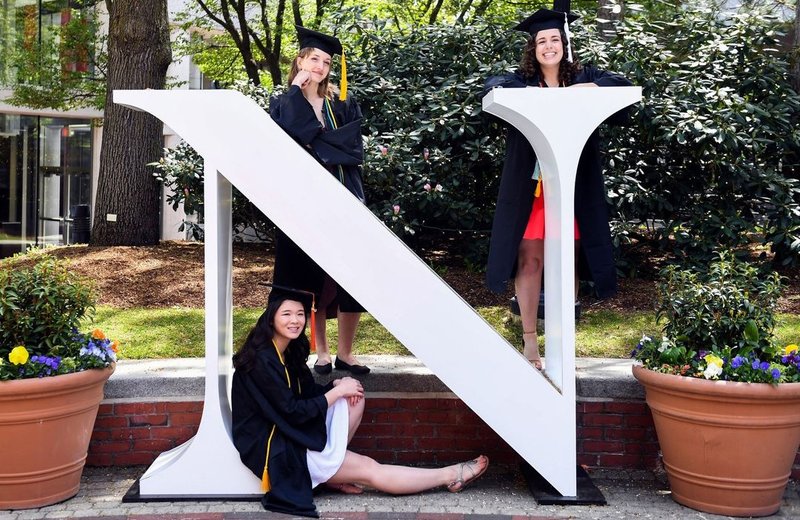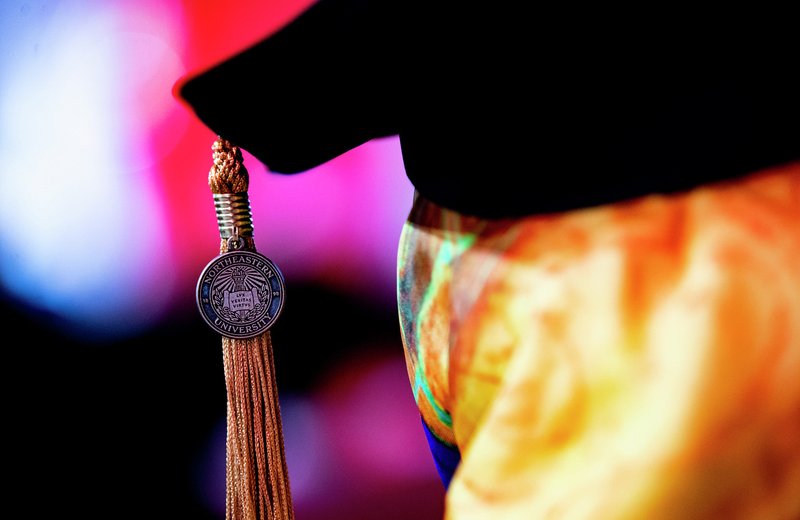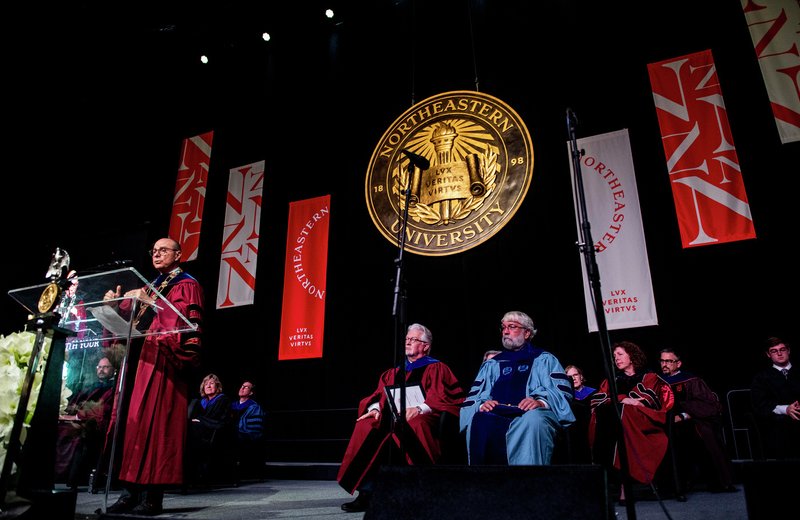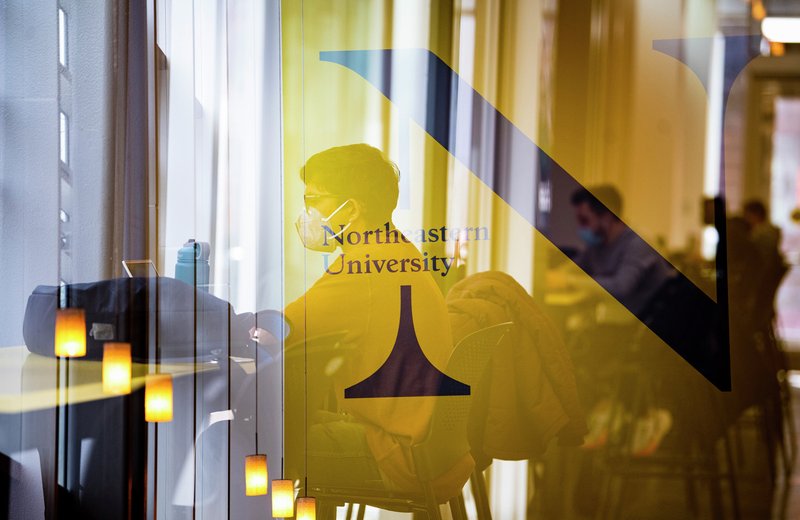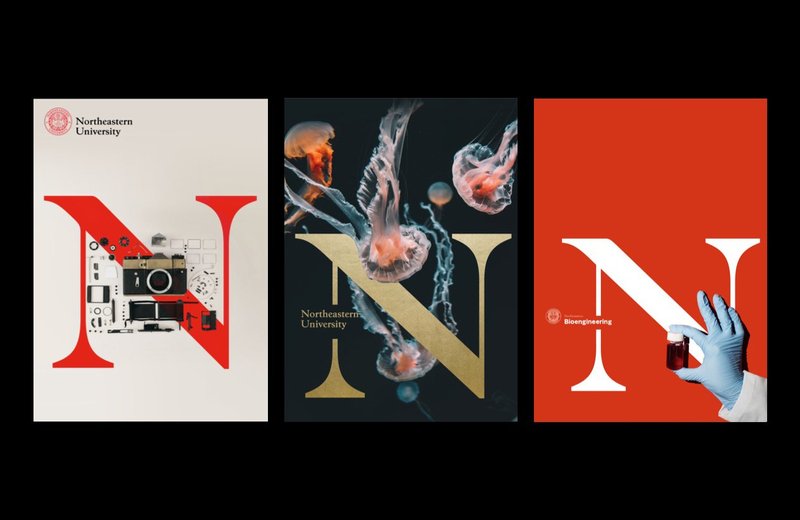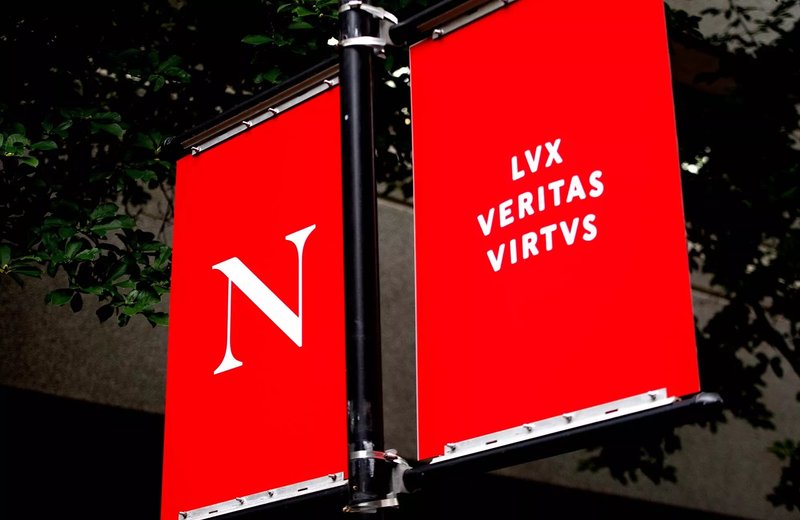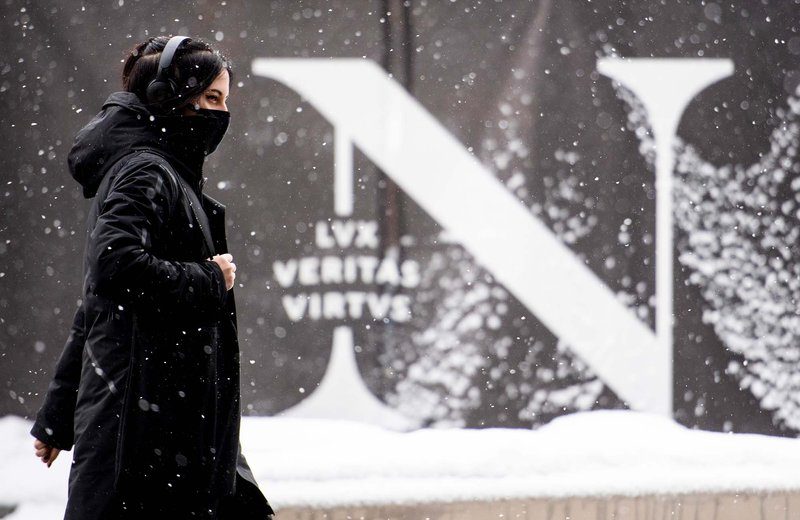
Custom typeface and lettering for Northeastern University
A black sign features the N monogram with motto, locked up with the Northeastern University logotype
The identity system in use. Image: Northeastern University
XYZ Type helped Boston-based studio Upstatement design an extensive identity system for Northeastern University that included a typeface, a logotype, a monogram, lettering, and even illustration—but it all started because the school needed to remove the words “Boston, Massachusetts” from their seal.
Northeastern had grown and expanded beyond their original campus, and they asked Upstatement to create a simplified seal, untethered by location and optimized for use everywhere from screens to enormous signage. Knowing this challenge required typographic finesse, Upstatement partnered with XYZ Type—and the project grew from there.
Two Northeastern University seals, old and new.
The Northeastern University seals, old and new
A close-up of the old Northeastern University seal.
The previous Northeastern University seal
A close-up of the new Northeastern University seal.
The new Northeastern University seal
Replacing a legacy of bad auto-tracing
The poorly autotraced historical seal that Northeastern University was using in all of its print and digital applications lacked nuance and became distractingly lumpy at large sizes. Upstatement tapped Jesse Ragan to make both the lettering and the illustrations clear and elegant in all applications, with a few updates.
He started by redrawing the torch, motto, scroll, and laurels with less visual clutter. Removing two words from the ring made space for “Northeastern University” to gain size and focus. No existing typeface was a perfect match for the historical lettering, so Jesse faithfully reinterpreted the glyphs in crisp, clean vector outlines.
Drawing letters on a curve presents special challenges, as letterforms can quickly get deformed or distorted out of visual balance, looking like they belong on a circus poster. Rather than warping the shapes in an arc or rotating each letter, Jesse meticulously drew them with a slight arch to the top and bottom of the letters and a slight fanning of the vertical strokes within.
The word "HER" is arched in two different directions
A demonstration of letterforms thoughtfully drawn on an arc
I try to approach digital lettering with the same detail and care that would have been employed before computers, to capture the warmth that comes from making something by hand. Otherwise, why bother with custom lettering in the first place?
Jesse Ragan, XYZ Type
The 1912 American Type Founders catalog rests open to a spread showing the typeface Jenson Oldstyle
Jenson Oldstyle, from the 1912 American Type Founders catalog
The 1912 American Type Founders catalog rests open to a spread showing the typeface Bookman Oldstyle
Bookman Oldstyle, from the 1912 American Type Founders catalog
The 1912 American Type Founders catalog rests open to a spread showing the typeface Clearface
Clearface, from the 1912 American Type Founders catalog
The 1912 American Type Founders catalog rests open to a spread showing the typeface Century Oldstyle
Century Oldstyle, from the 1912 American Type Founders catalog
Thinking outside of the seal
After demonstrating dramatic improvements to the seal, Upstatement persuaded Northeastern to dig deeper into rethinking their identity system—a lot deeper. Their broad strategy included replacing off-the-shelf Baskerville with a brand new logotype and a matching typeface, inspired by the lettering in the seal. The two would function seamlessly together for department name lockups and any future unexpected growth.
Jesse stepped in again. His design process started with the “test characters” N U a e h i n o r s t v y, since the letterforms in the school’s name established the tone of the logotype and carried it into the supporting typeface.
Lacking a direct reference for the lowercase letters, Jesse showed Upstatement a variety of typefaces that were popular around the time of the school’s founding and resonated with the capitals in the seal. Through collaborative discussions with the design team, he established a new visual style distilled from several faces offered by American Type Founders in the early 1900s: Jenson Old Style, Bookman, Century Old Style, and Clearface.
Speare, Northeastern’s custom typeface, doesn’t directly match any of those references, but it captures the spirit of a time period and the aesthetic foundation of the seal.
Demonstration text showing the typeface Speare
Speare, Northeastern University’s custom typeface
Demonstration text showing the typeface Speare
Speare, Northeastern University’s custom typeface
Demonstration text showing the typeface Speare
Speare, Northeastern University’s custom typeface
Demonstration text showing the typeface Speare
The identity system in use. Image: Upstatement
The identity system in use. Image: Northeastern University
A person in winter clothing walks in front of a large image of the Northeastern N monogram and motto
The identity system in use. Image: Northeastern University